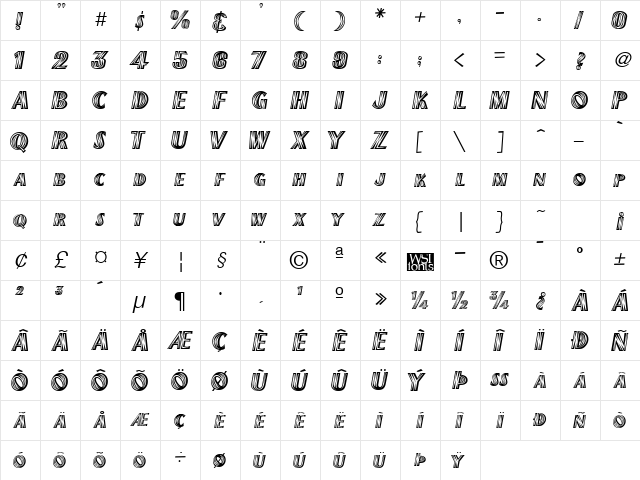
NewMexico Regular
Design Context for NewMexico Typeface
NewMexico is a composed and adaptable typeface that performs quietly and consistently across a wide range of design contexts.